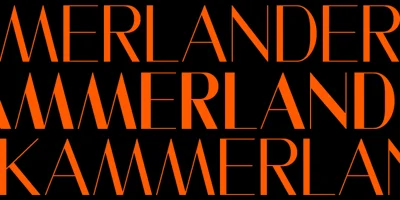
Kammerlander Font
Kammerlander Font is perfect for Alpine branding, outdoor adventure companies, mountain lodge signage, hiking equipment labels, German-inspired designs, traditional European branding, craft beer packaging, heritage tourism materials, and any project requiring authentic Germanic typography with mountaineering spirit.
What makes Kammerlander Font exciting is its robust Alpine character that embodies the strength and endurance of mountain culture. This distinctive typeface captures the essence of Germanic craftsmanship with bold, sturdy letterforms that reflect the rugged beauty of Alpine landscapes. The font's authoritative presence and traditional European styling make it ideal for brands that want to convey reliability, heritage, and connection to outdoor adventure and mountain traditions.
The Kammerlander Font family includes regular and bold weights, featuring complete uppercase and lowercase alphabets, numerals, punctuation marks, and extended European character support. The font maintains consistent strength and readability throughout all weights while preserving its distinctive Alpine character and traditional Germanic styling.
Whether you're designing for outdoor recreation businesses, creating heritage-inspired branding, or developing authentic European-style marketing materials, Kammerlander Font delivers unmatched authenticity and mountain spirit. This powerful typeface transforms ordinary text into compelling visual statements that evoke adventure, tradition, and Alpine excellence. The font's versatility makes it perfect for both rugged outdoor applications and sophisticated European branding projects. Download this exceptional font today and bring the authentic spirit of Alpine craftsmanship to your design endeavors.